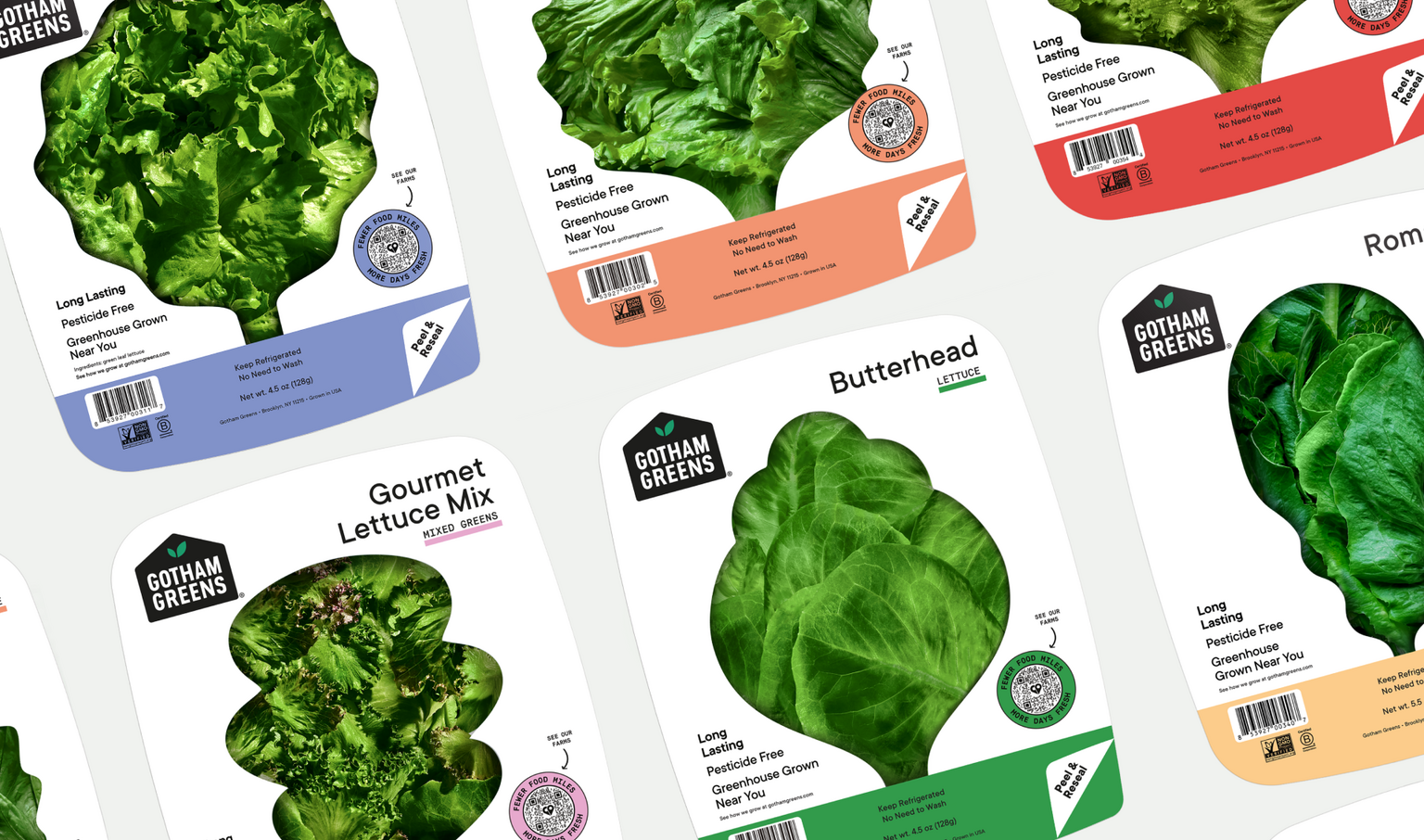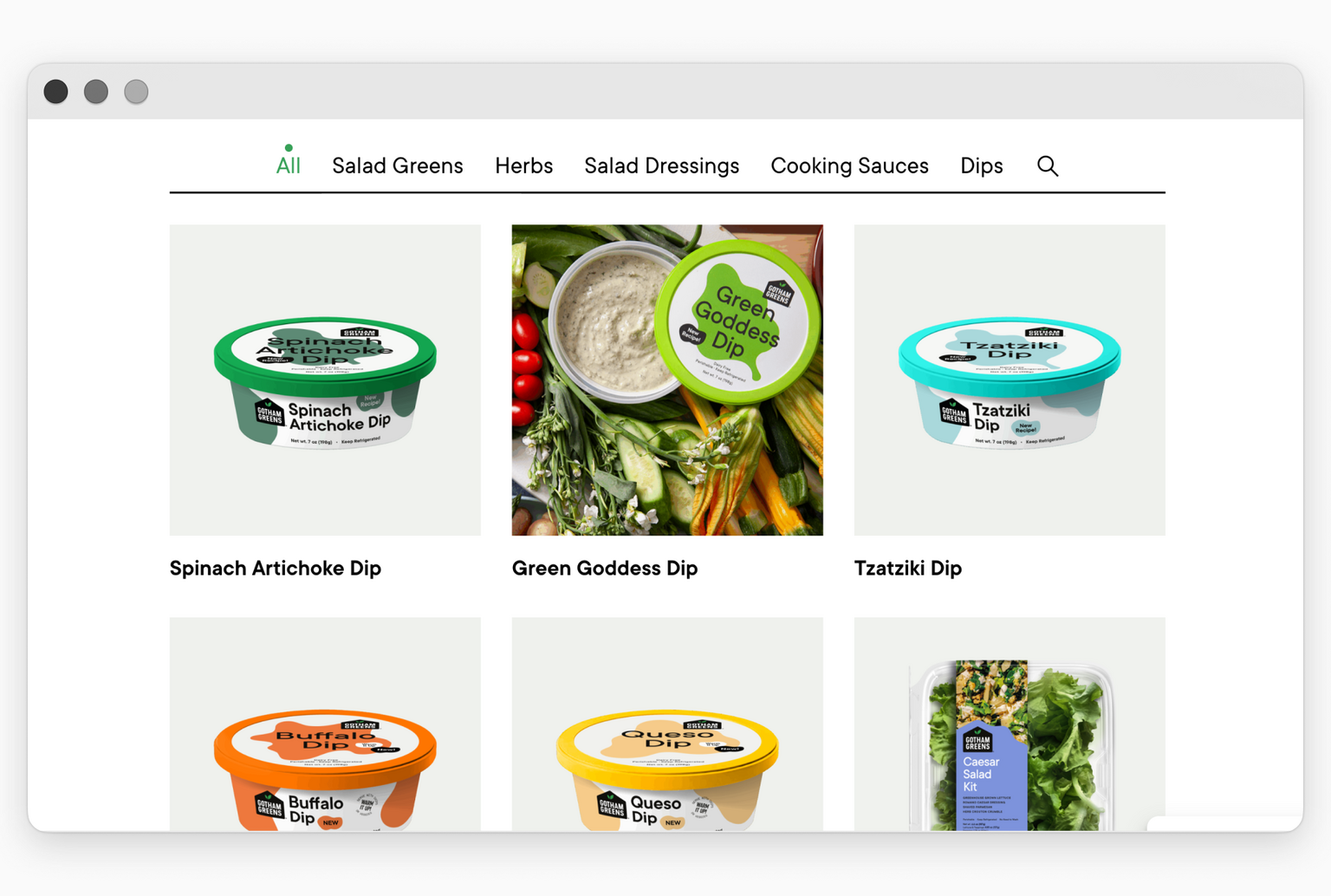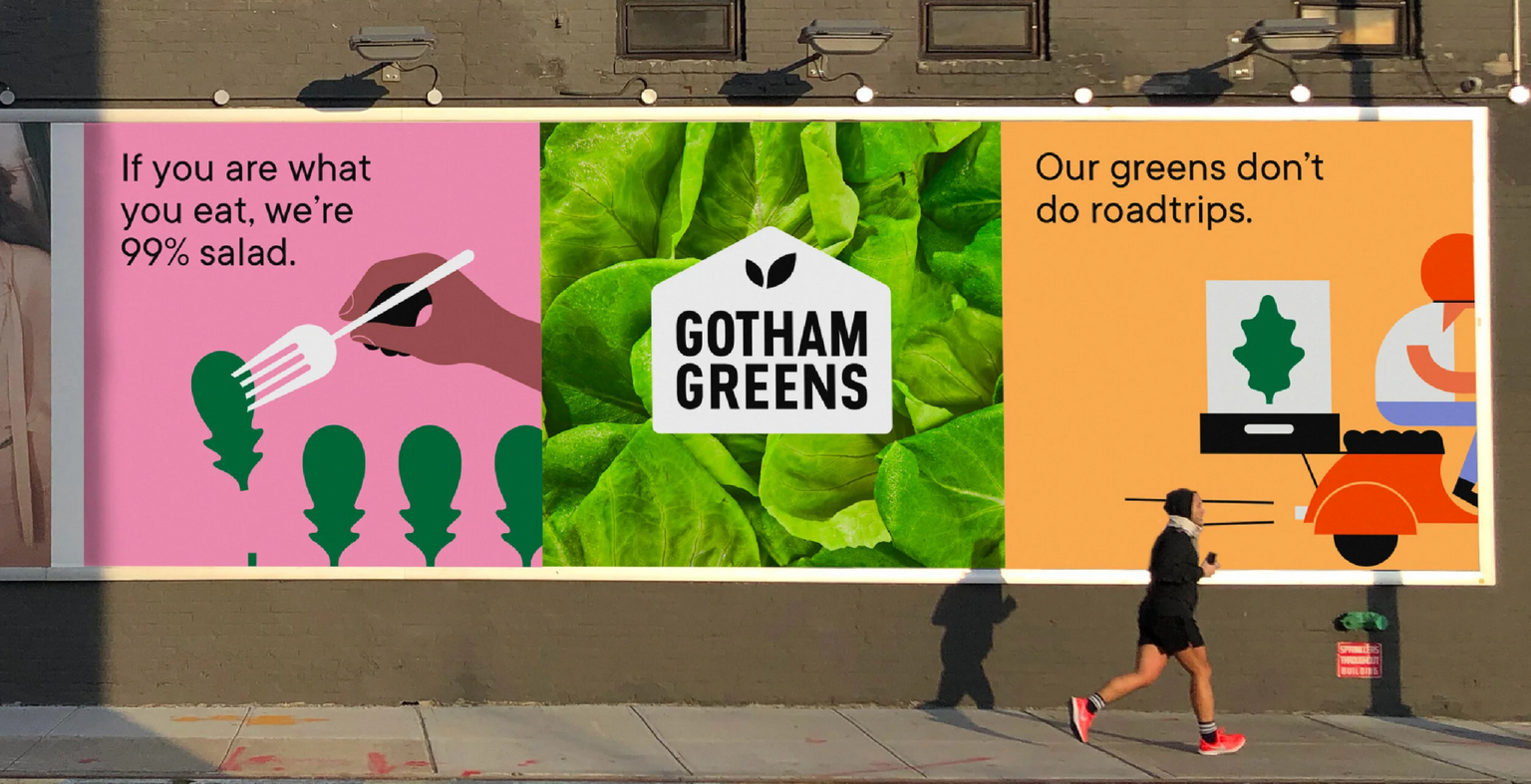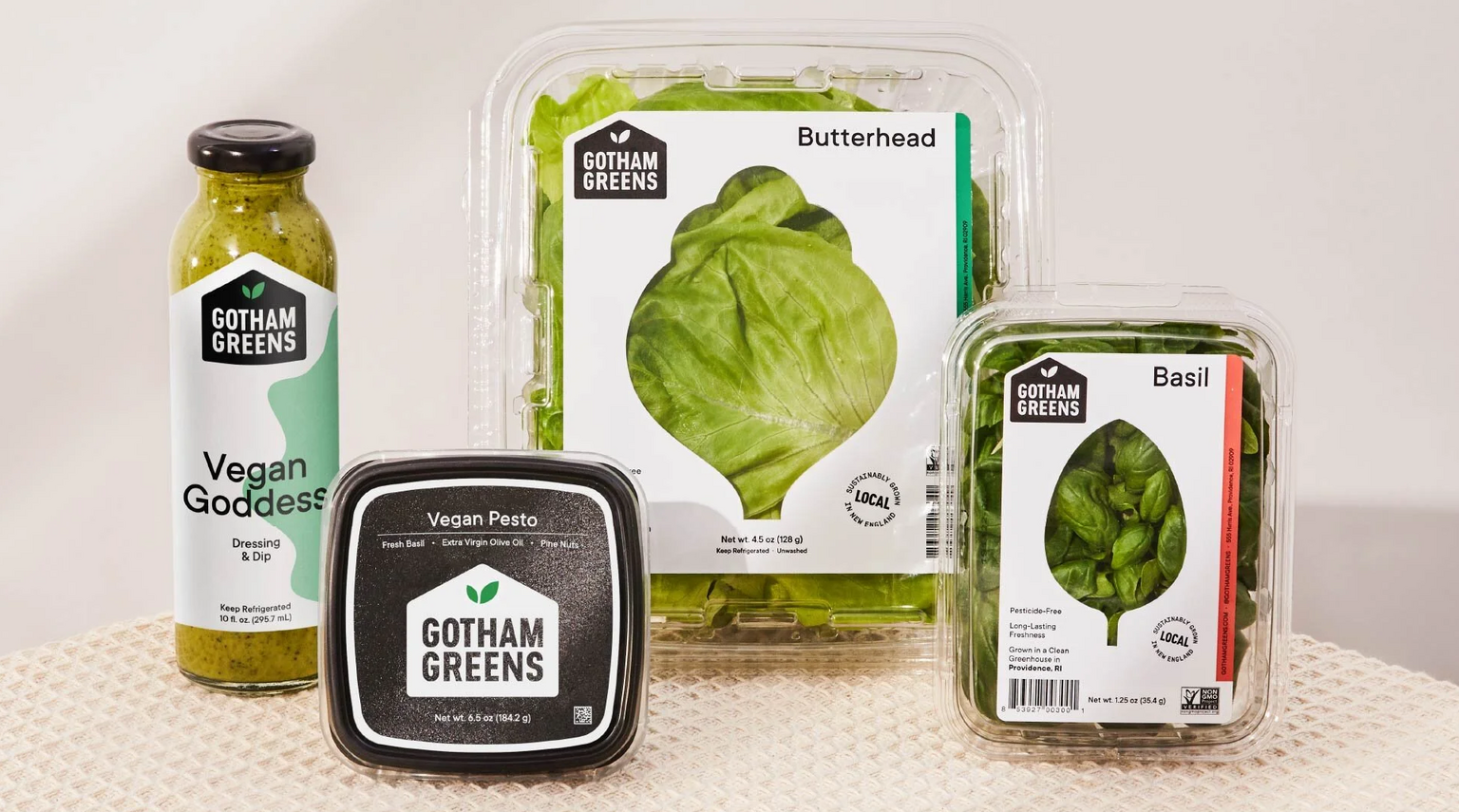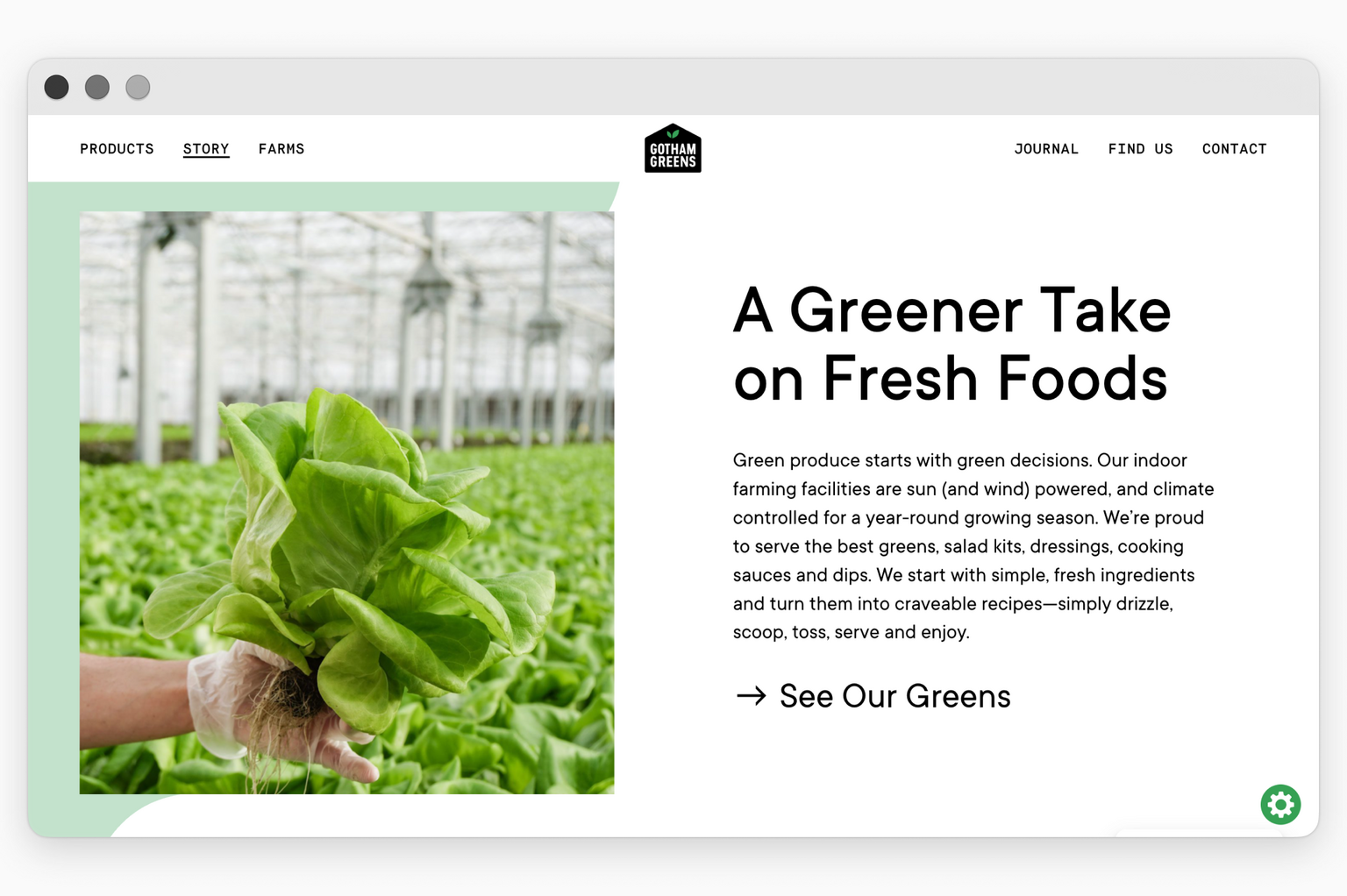
The functional TT Commons™ Pro has become part of the brand identity for the American company and fresh food brand Gotham Greens.
Gotham Greens grows leafy greens and vegetables year-round in high-tech urban greenhouses and also produces ready-to-eat products under its own brand. Our font organically integrated into the brand’s style, highlighting its innovative nature.